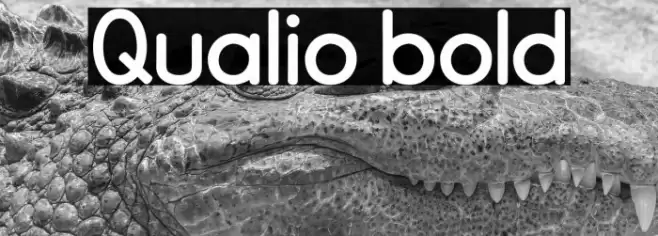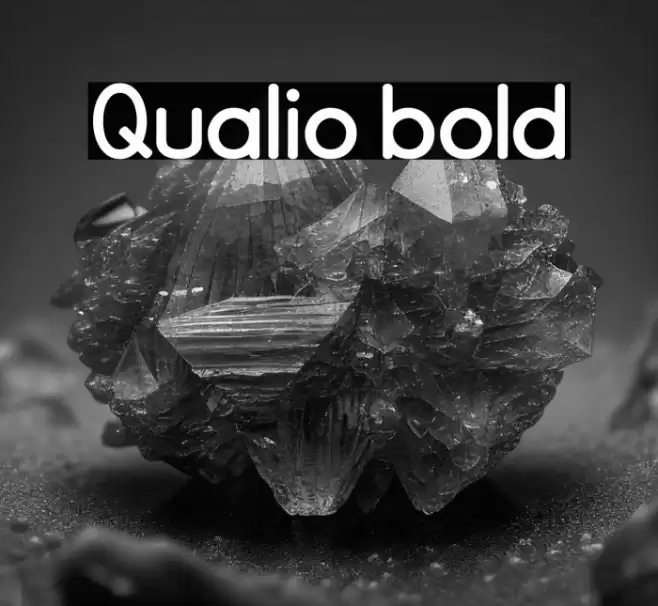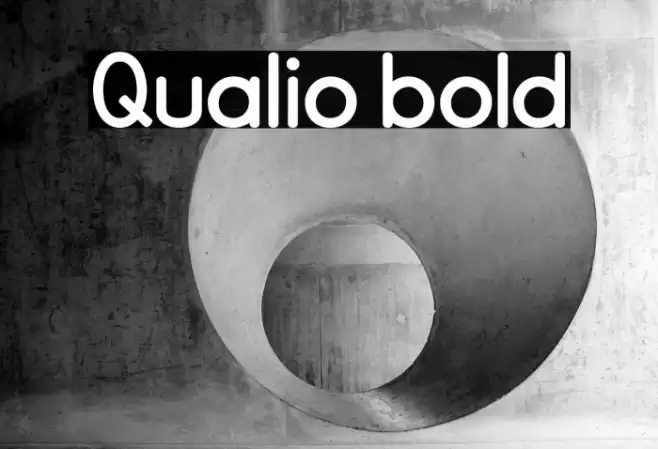
Qualio bold Font
Qualio bold Description
This font features a clean and modern sans-serif design with rounded edges, providing a friendly and approachable appearance. The characters are evenly spaced, contributing to excellent readability. The uppercase and lowercase letters maintain a consistent style, with uniform stroke widths that offer a balanced and harmonious look. The numerals are clear and distinct, making them suitable for various applications. Special characters are well-integrated, maintaining the overall aesthetic of the font. This typeface is versatile, suitable for both digital and print media.
A modern, rounded sans-serif font with excellent readability from Regular fonts.